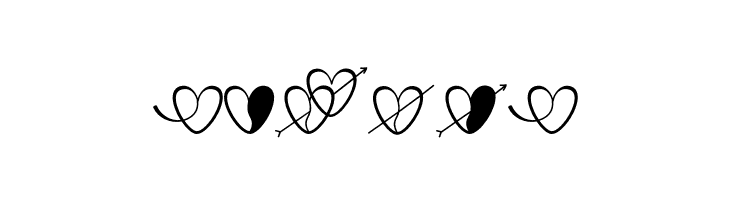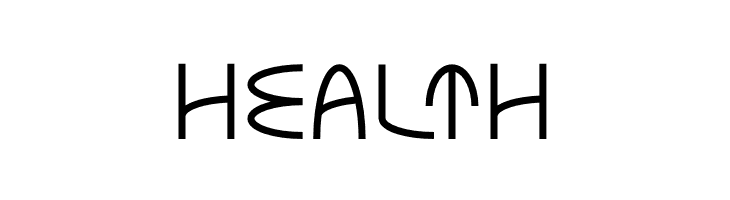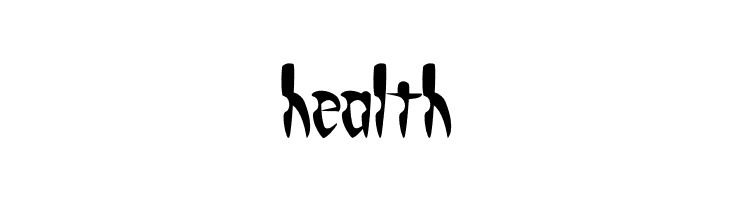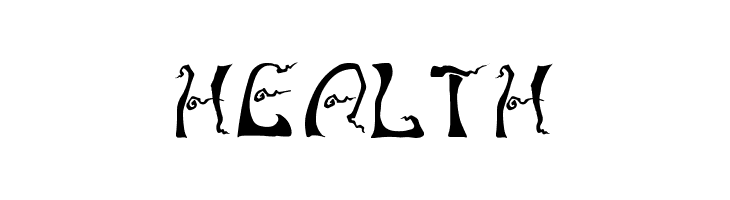
A jagged, eerie font perfect for horror themes with scratch-like strokes.
A playful heart and arrow design, ideal for romantic themes.
A whimsical heart and arrow design perfect for romantic themes.
A playful, spooky font with jagged edges and a hand-drawn style, perfect for Halloween themes.
A bold, spooky font with a dripping effect, ideal for Halloween themes.
A spooky, Halloween-themed decorative font with dripping effects and playful elements.
A display font made from weapon and tool silhouettes.
A modern, futuristic font with sleek, curved characters.
A bold, jagged font with sharp edges and dynamic strokes, ideal for dramatic designs.
A whimsical, vine-like decorative font with playful and eerie characteristics.